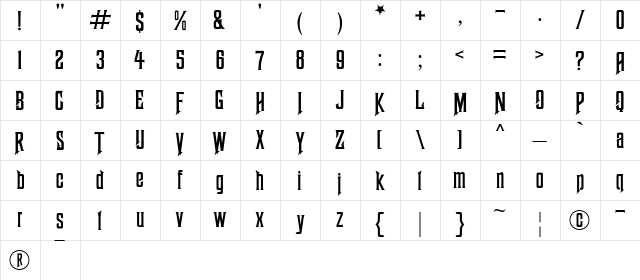
Haunted Mouse Regular
| Designer | Steve Ferrera |
Design Context for Haunted Mouse Typeface
Haunted Mouse is a composed and adaptable typeface that performs quietly and consistently across a wide range of design contexts.